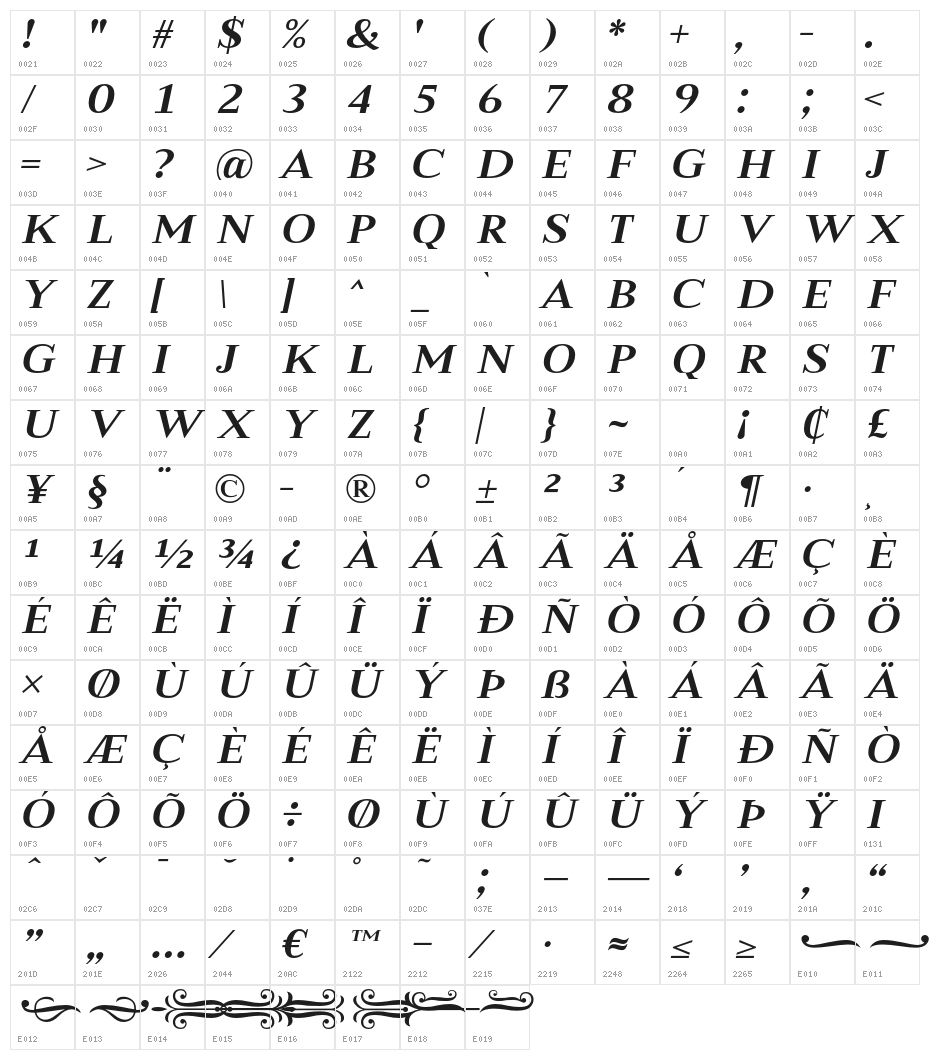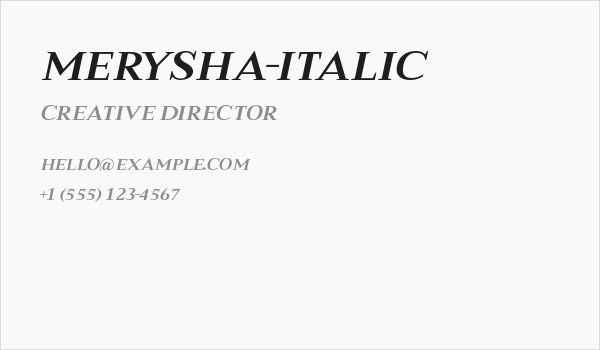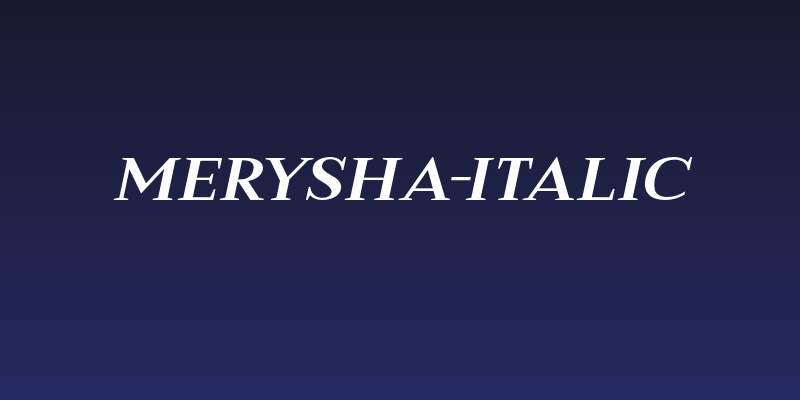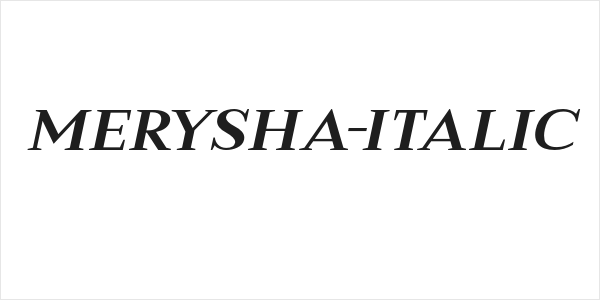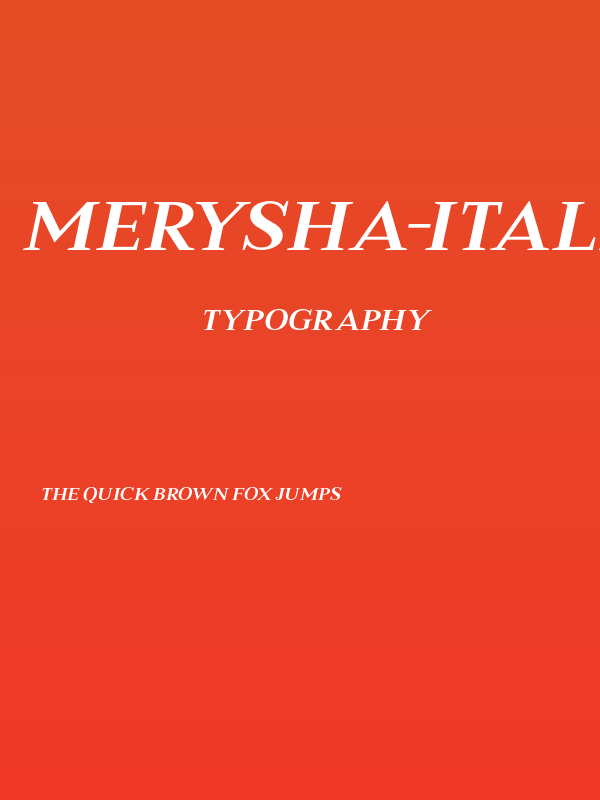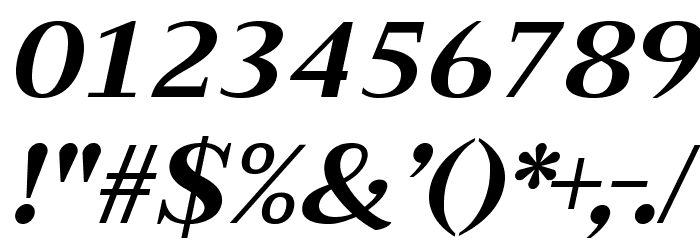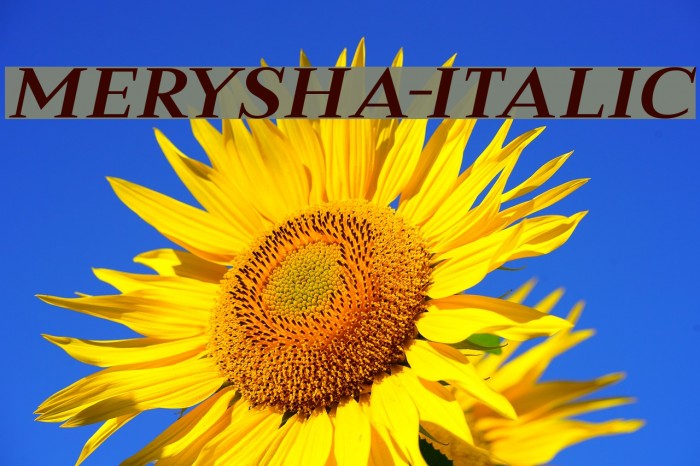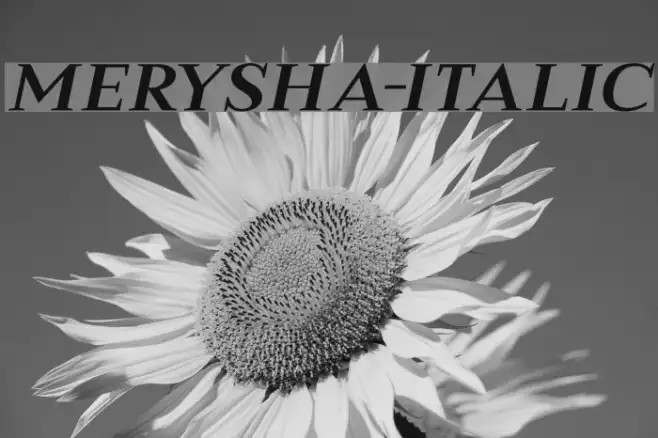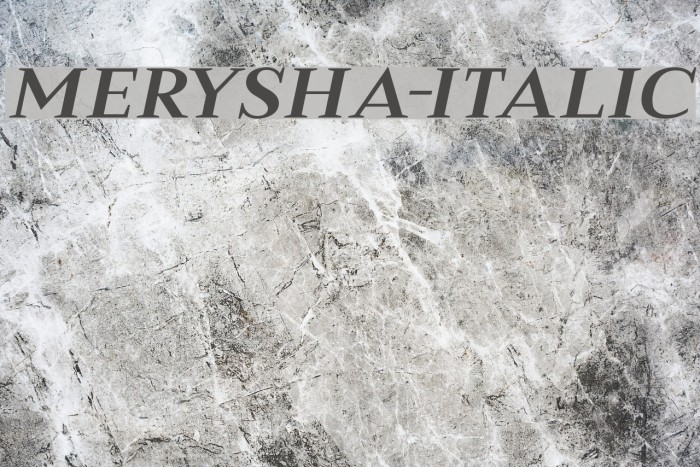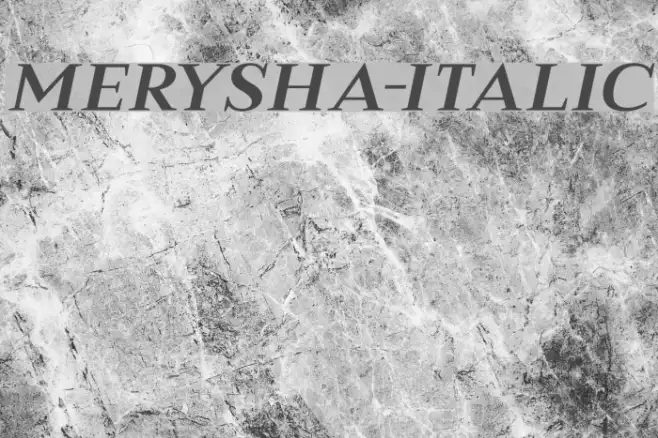
Merysha-Italic Font
Merysha-Italic Description
This elegant serif font features a classic italic style, characterized by its smooth, flowing lines and slight slant to the right. The uppercase letters are well-proportioned, with a refined and sophisticated appearance, while the lowercase letters maintain a consistent style that complements the overall design. The numerals are clear and distinct, ensuring readability. Special characters are thoughtfully designed to match the font's aesthetic, making it versatile for various applications. The font's balance between traditional serif elements and modern italic flair makes it suitable for both formal and creative projects.
| Proposed Projects | Ideal for wedding invitations, luxury branding, editorial design, and elegant packaging. |